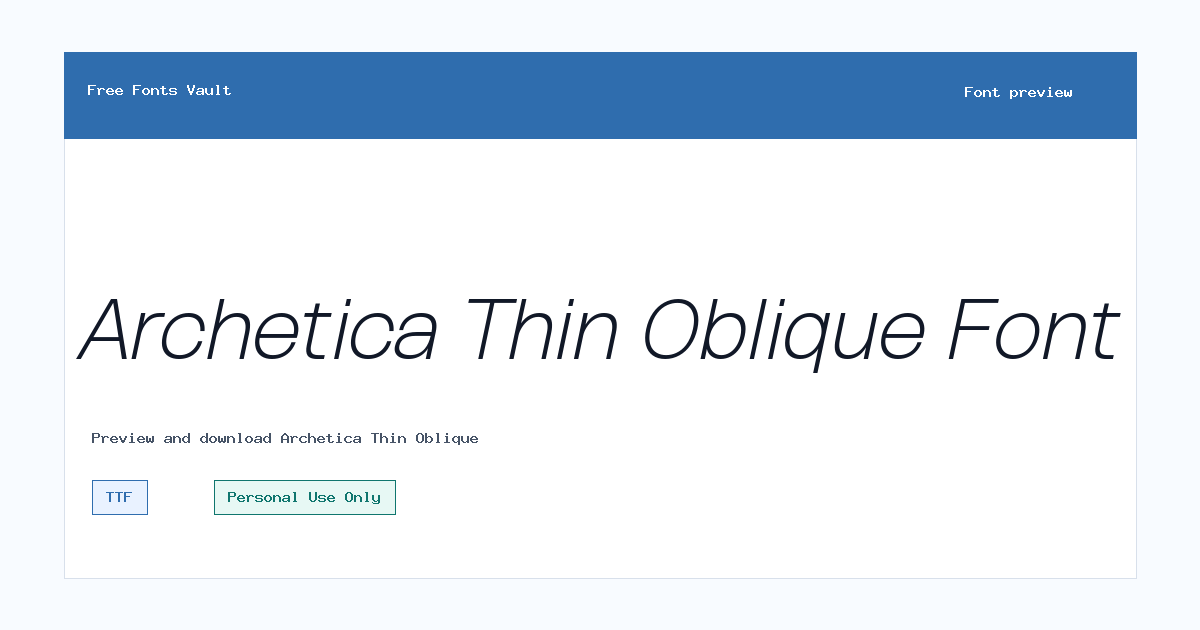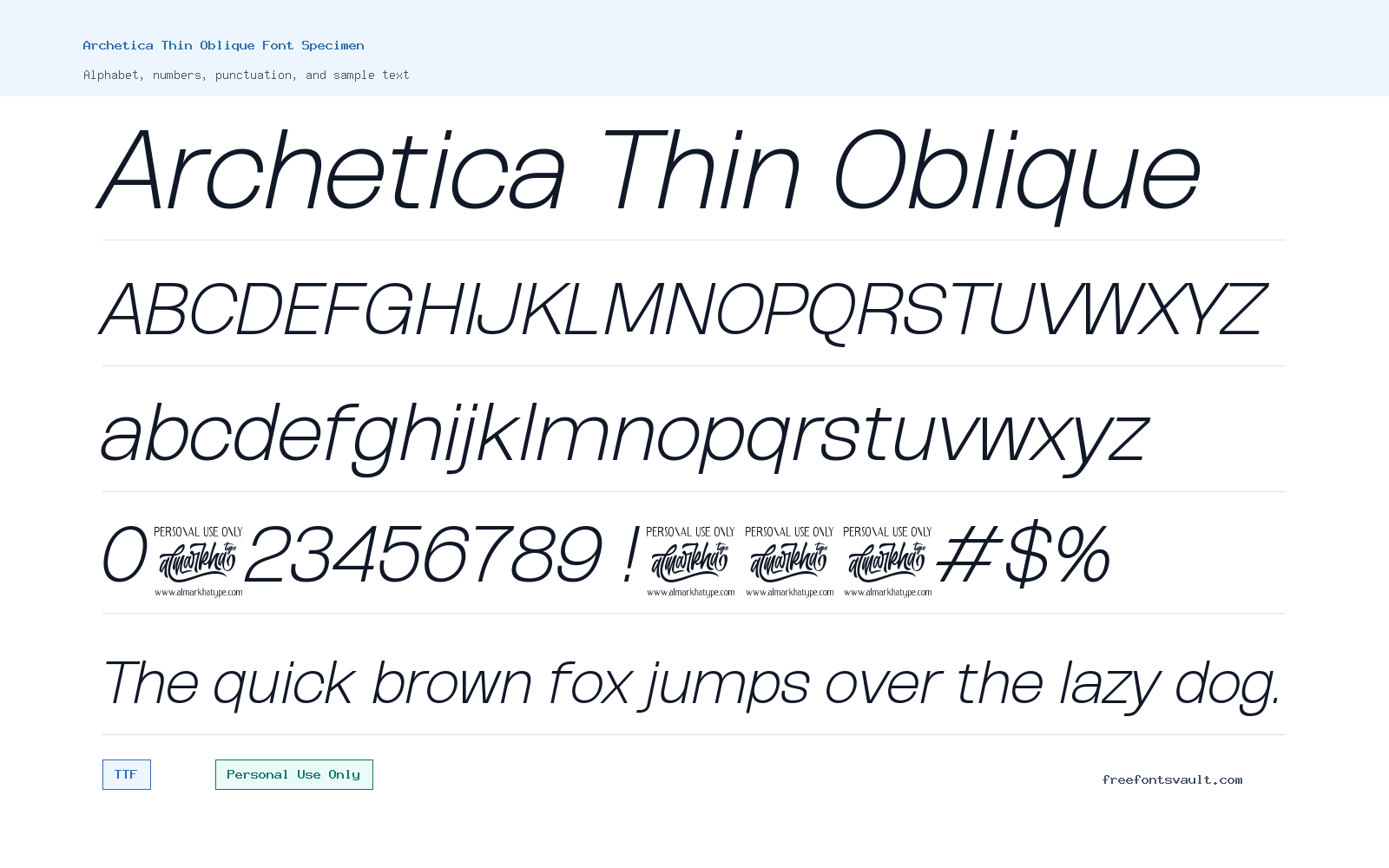
Archetica Thin Oblique
- Designer Ridwan Fadilah & Malik Wisnu
- Foundry Almarkhatype
Archetica Thin Oblique font.
Archetica Thin Oblique is a very light italic sans serif style with a clean, slanted look. It works best when you need a refined line of text rather than a heavy display face, making it useful for elegant headings, soft branding drafts, and layout previews.
About Archetica Thin Oblique
Archetica Thin Oblique has a thin weight and an oblique style, so its main character comes from restraint. The letters are likely to feel airy in use because the font weight is 100, while the italic styling adds forward movement without making the design feel loud. That combination can be useful for short phrases, fashion-style titles, minimal poster text, portfolio headings, editorial mockups, and logo concepts where the type should feel light and controlled. It is not the kind of font to use when you need maximum impact at a distance or strong contrast on a busy background. Thin italic type usually needs breathing room, clean spacing, and enough size to keep the strokes visible.
For designers testing this font, start with short words, names, and two- to five-word headlines in the preview tool. Try it in uppercase, lowercase, and mixed case, then check whether the thin strokes remain clear at the size you plan to use. Archetica Thin Oblique may suit logo sketches, social graphics, invitation-style layouts, poster subtitles, website hero lines, and web mockups where the typography should feel modern and quiet. Use caution with body text, long paragraphs, small captions, and low-resolution images because very light oblique fonts can lose clarity when reduced. If you are pairing it with another typeface, choose something simpler and more readable for the supporting text, such as a regular-weight sans serif for paragraphs or a neutral serif for contrast. Let Archetica Thin Oblique carry the stylish accent while the paired font does the practical reading work.
- Thin 100-weight sans serif style with an oblique/italic appearance
- Best suited to short display text, refined headings, and clean visual mockups
- Light stroke weight that benefits from generous spacing and larger sizes
- Logo drafts and wordmark concepts for personal projects
- Minimal posters, fashion-style layouts, and editorial titles
- Website hero text, landing page mockups, and portfolio headings
- Invitation designs, social media graphics, and elegant short quotes
- Pairing with a regular-weight sans serif for readable supporting copy
Use Archetica Thin Oblique at larger sizes, especially for headings and logo-style text. Thin italic fonts can look elegant, but they can also become hard to read when placed over photos, gradients, or textured backgrounds. For posters and social graphics, test it on both light and dark backgrounds before exporting. For web mockups, use it as an accent face rather than the main reading font. If you plan to use it in a real website, check loading, rendering, and licensing carefully, and keep a fallback font ready. For pairing, try a regular or medium-weight sans serif for menus and paragraphs, or use a calm serif when you want a more editorial contrast. Avoid pairing it with another very thin decorative font, because the layout may become fragile and difficult to scan.
What kind of font is Archetica Thin Oblique?
It is a thin oblique sans serif font. The available style is italic with a 100 font weight, which makes it better for light display text than dense reading copy.
Is this font good for body text?
It is better for short display text. Because it is very light and oblique, long paragraphs or small captions may become harder to read.
What fonts pair well with Archetica Thin Oblique?
Pair it with a clean regular-weight sans serif for body text, navigation, and labels. If you want contrast, a simple serif can also work, as long as the layout stays readable.